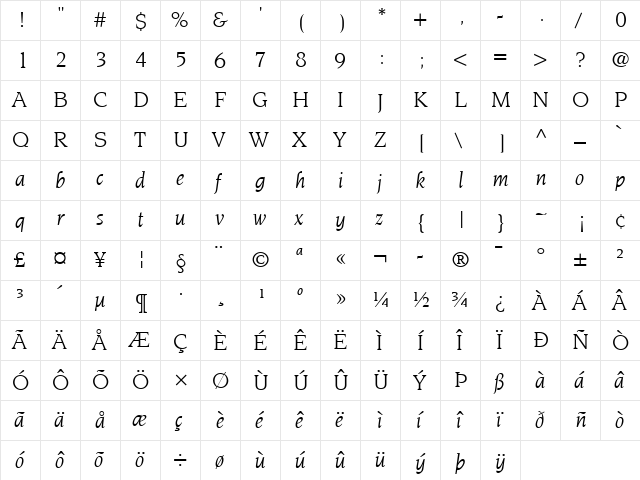
Novarese LT Book Italic Font Preview
Design Context for Novarese LT Book Typeface
Novarese LT Book takes a measured approach to typography — its balanced proportions and neutral character make it a reliable workhorse for both digital and print work. The dynamic lean of this cut emphasises speed and emphasis in any layout. The delicate stroke weight brings airiness and refinement to layouts.
Pro Tip: Try Novarese LT Book for annotation and caption copy alongside an upright companion — the contrast in angle creates a dynamic but ordered typographic system.